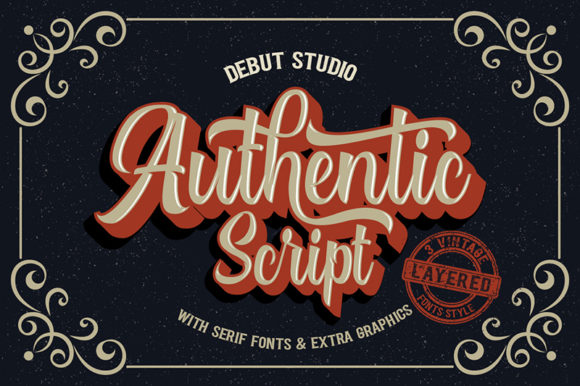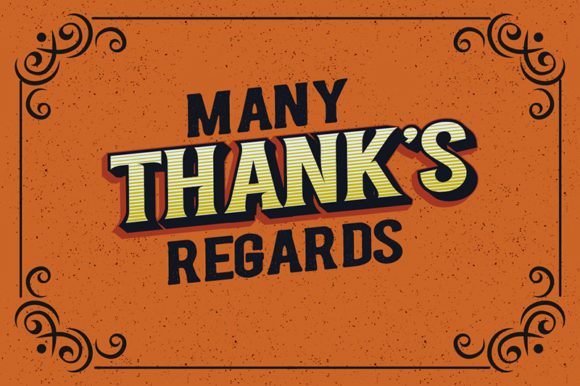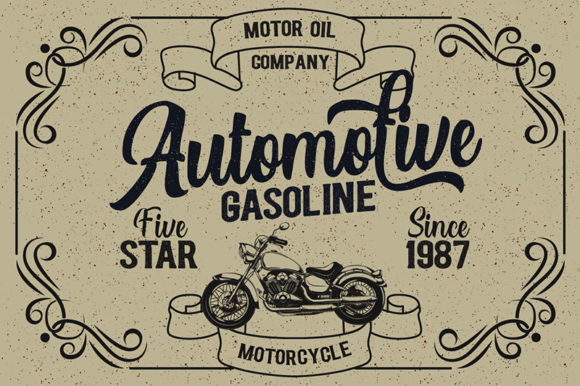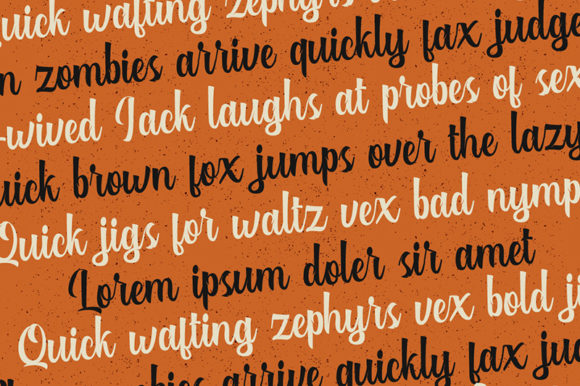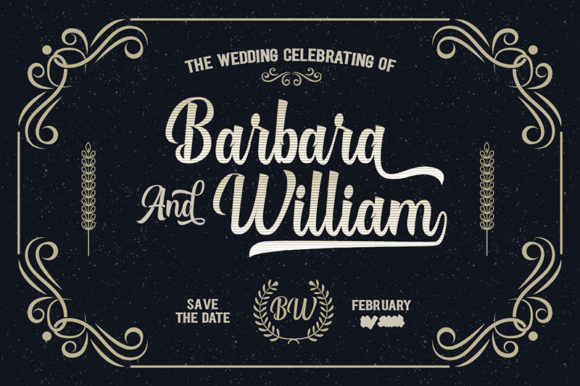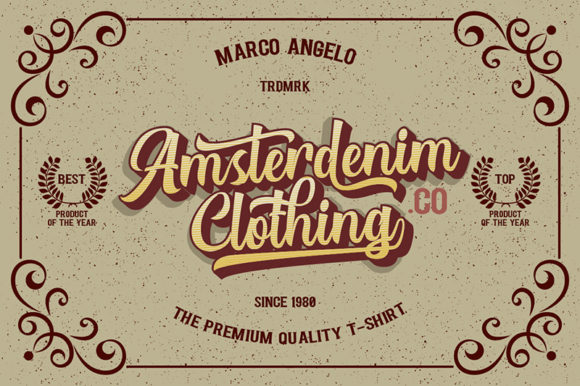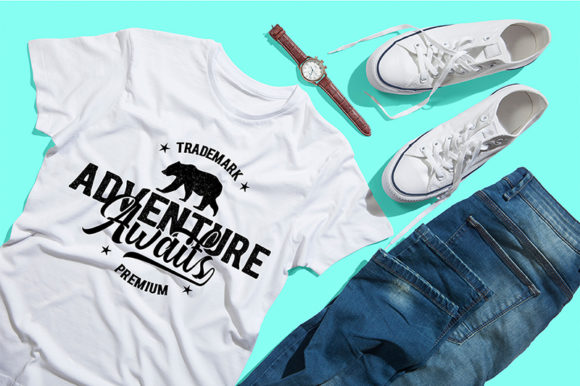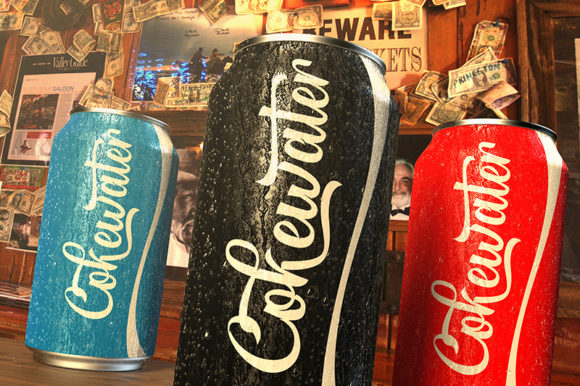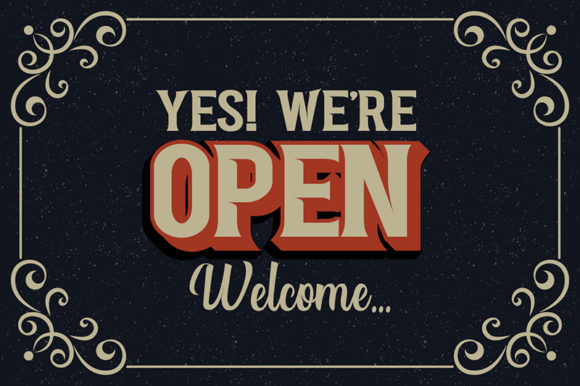
Authentic Duo Font
About Authentic Duo Font
The Authentic is a large font collection. It includes 5 typefaces in serif and script versions. Each comes with 4 layered typefaces and a rough version.
It can be used for young, passionate designs such as logos, t-shirts branding, and much more!
Included as a bonus are amazing design elements, animal silhouettes, and frames!